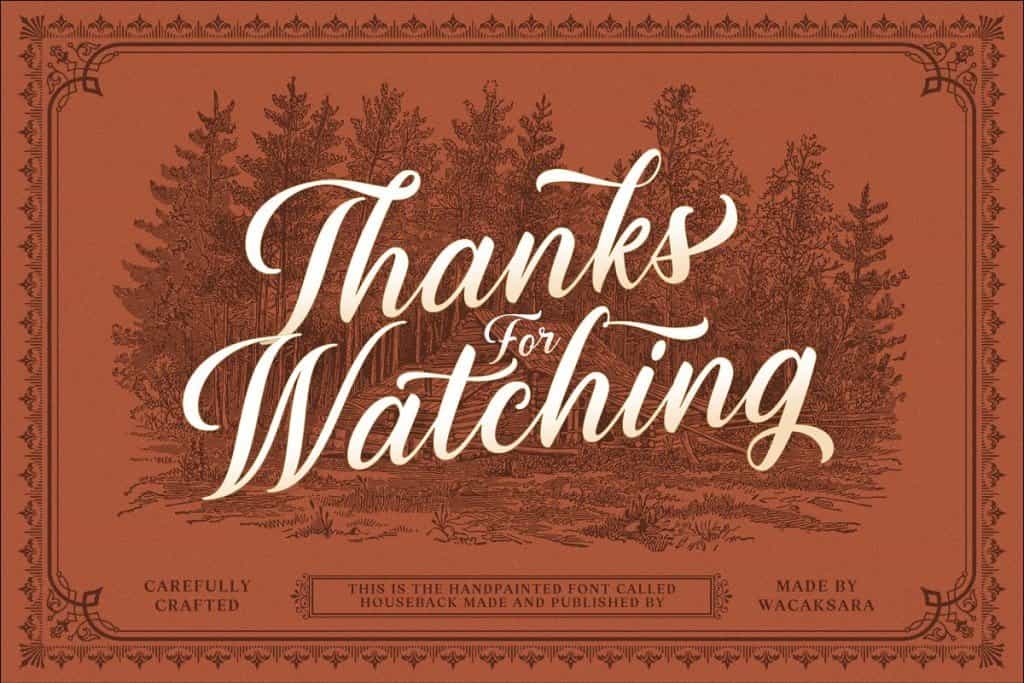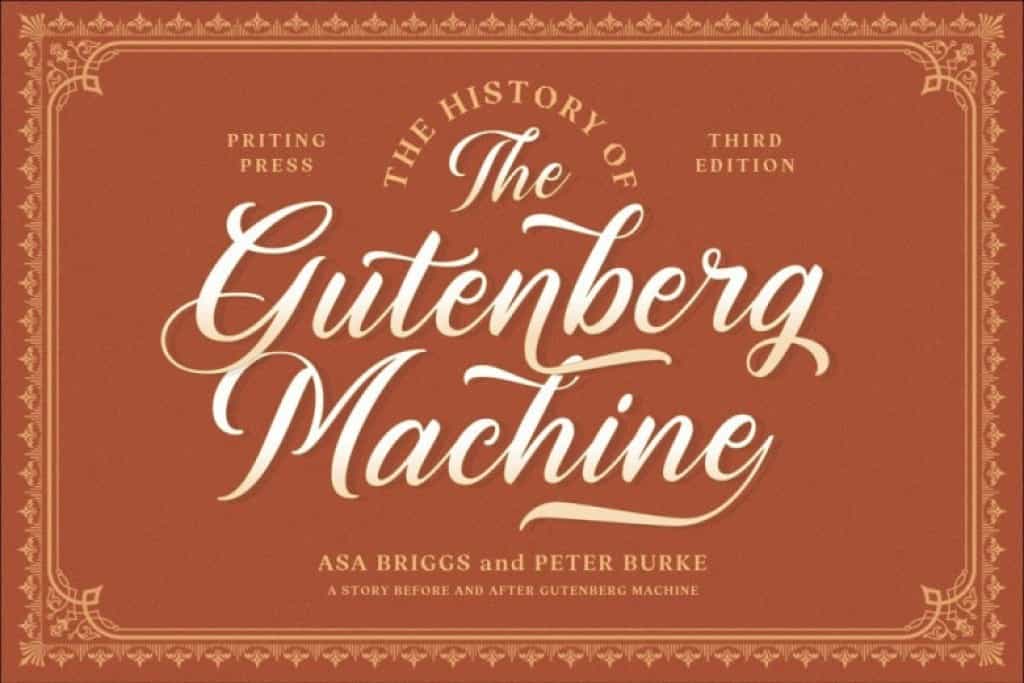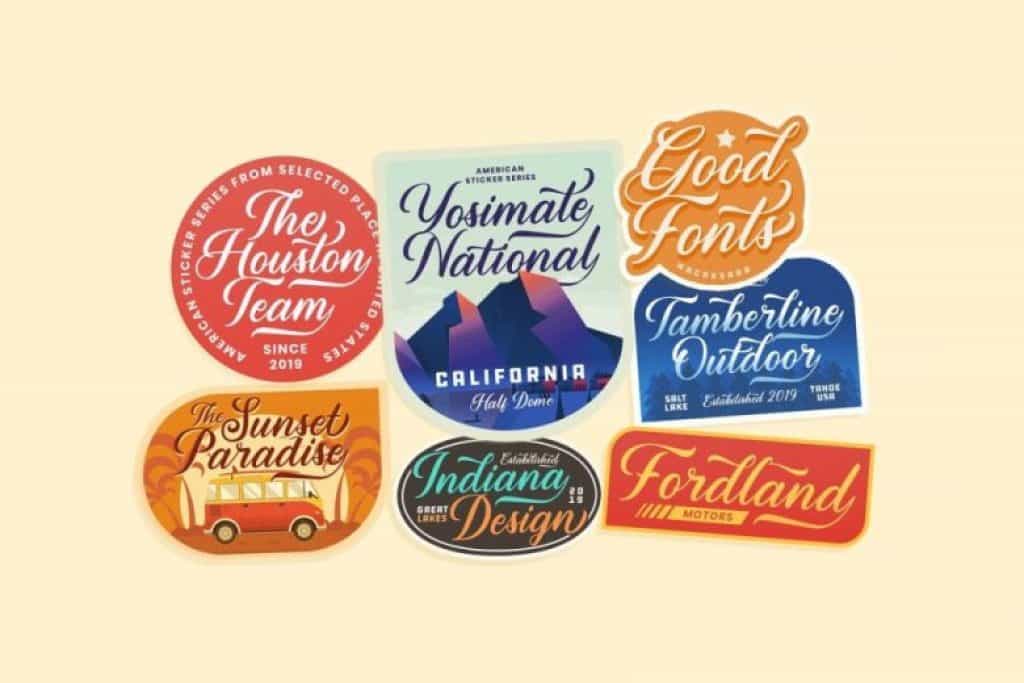
Houseback is a calligraphy script font created from traditional calligraphy and sign painting and thus it has elements of both. This font is perfect for your next work for example Logotype, printed quotes, invitations, cards, product packaging, headers, Letterhead, Poster, Apparel Design, Label, and etc.